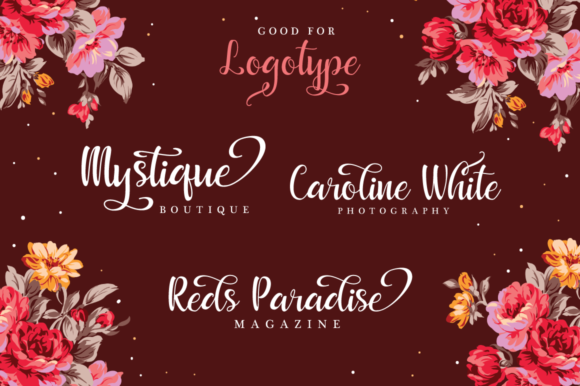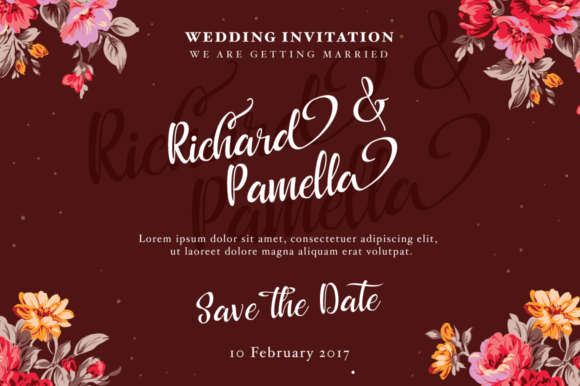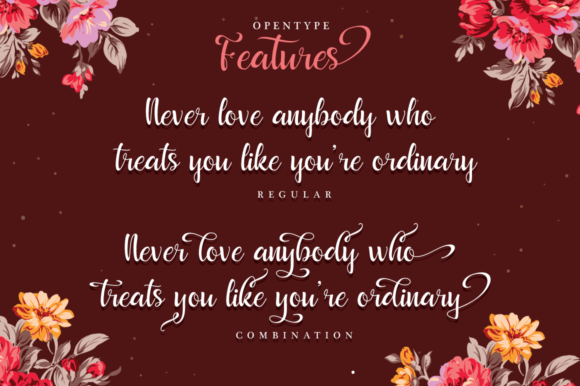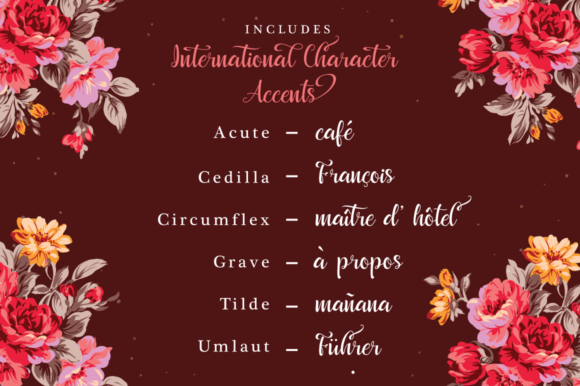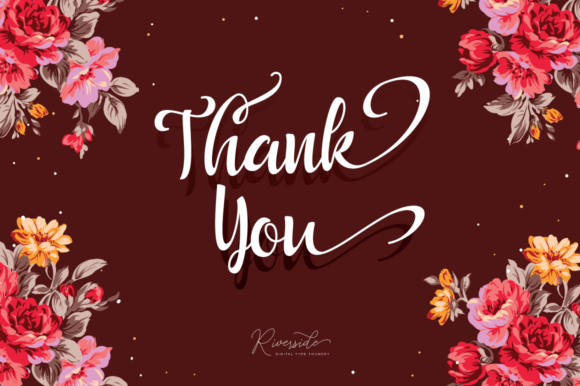
The Perfect Script for Unforgettable Designs
Imagine you’re working on a project and you need to add that extra touch to make it truly special. You’re browsing through fonts, and suddenly, you stumble upon a script that makes your heart skip a beat. This is exactly what happens when you discover the Beautyface Script Font.
This elegant calligraphy script is designed to add a touch of sophistication and glamour to your designs. With its beautiful swashes, it’s perfect for creating logos, name tags, handwritten quotations, product packaging, and even social media graphics. The Beautyface Script Font is a valuable asset for designers who want to elevate their work and leave a lasting impression on their audience.
Beautyface Script Font Key Features
- Unique Characteristics: This elegant script font features flowing connections, beautiful letterforms, and a touch of sophistication, making it perfect for wedding invitations, branding, and other high-end designs.
- Kerning and Ligatures: The font includes advanced kerning and ligature pairs, ensuring that text looks professional and polished, even at small font sizes.
- Customization Options: Beautyface Script Font offers a range of OpenType features, including stylistic sets, swash glyphs, and contextual alternates, allowing designers to add a personal touch to their designs.
Beautyface Script Font Review
At first glance, Beautyface Script Font seems like the perfect choice for any beauty or lifestyle brand. It’s elegant, feminine, and screams luxury. ✨ I love the flowing lines and the way the letters dance together. It’s definitely a head-turner.
However, as I dug deeper, I found a few limitations that might make it less desirable for certain projects. ⚠️ For one, the font is quite large in size, which might make it difficult to read in smaller text sizes. Additionally, it doesn’t have a lot of versatility in terms of weights and styles, which can limit its use in different design scenarios.
Overall, I would say that Beautyface Script Font is perfect for projects that require a touch of elegance and sophistication. But, if you’re looking for a more versatile font that can handle a range of design tasks, you might want to look elsewhere.
- ✨ Elegant and feminine design
- ✨ Perfect for beauty and lifestyle brands
- ⚠️ Large font size can be difficult to read in smaller text sizes
- ⚠️ Limited versatility in terms of weights and styles
Use the Beautyface Script Font for titles, headings, and other decorative text elements.
Combine the Beautyface Script Font with other fonts for a unique and stylish look.
Experiment with different font sizes and colors to achieve the desired effect.
Party and event decorations
Branding and marketing materials
Alternatives to Beautyface Script Font